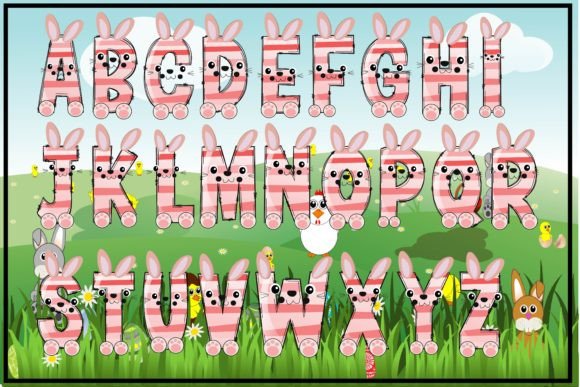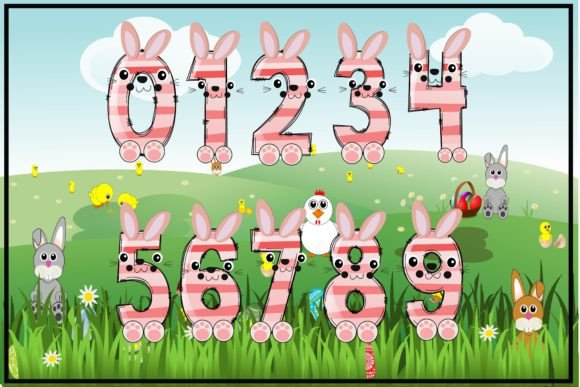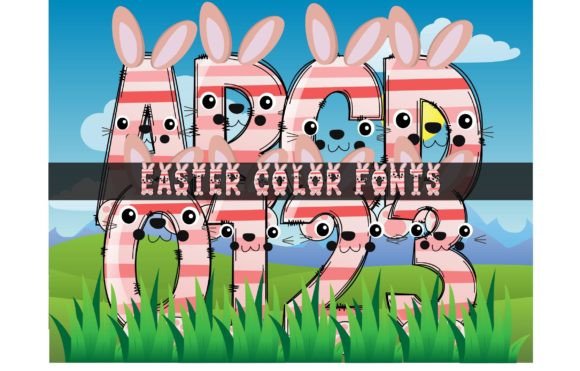
Easter Font: Add a Burst of Energy to Your Designs with Vibrant Hues
Are you looking for a way to add a fun and playful touch to your designs? Look no further than the Easter font! This vibrant and unique font is perfect for headlines, logos, and social media graphics, and is sure to make your designs stand out. In this article, we’ll explore the benefits of using the Easter font, and how it can enhance your designs with its bold and bright colors.
What is Easter Font?
Easter font is a type of color font that is specifically designed to add a burst of energy to your designs. With its vibrant hues and playful style, this font is perfect for designers and crafters who want to create fun and eye-catching designs. Whether you’re working on a project for Easter, spring, or just want to add a pop of color to your designs, the Easter font is a great choice.
Benefits of Using Easter Font
There are many benefits to using the Easter font in your designs. Here are just a few:
• Adds a fun and playful touch: The Easter font is perfect for designers who want to add a lighthearted and playful touch to their designs. Its bright colors and unique style make it a great choice for projects that require a bit of whimsy.
• Perfect for headlines and logos: The Easter font is ideal for headlines and logos, as it stands out and grabs attention. Its bold and bright colors make it easy to read, even at small sizes.
• Great for social media graphics: The Easter font is also perfect for social media graphics, as it is designed to stand out on a variety of backgrounds. Its vibrant colors and playful style make it a great choice for creating engaging and shareable graphics.
How to Use Easter Font in Your Designs
Using the Easter font in your designs is easy! Here are a few tips to get you started:
• Choose from a range of bright colors: The Easter font comes in a range of bright and bold colors, so you can choose the perfect shade for your design. From pastel pink to bright blue, there’s a color to suit every project.
• Use it for headlines and logos: The Easter font is perfect for headlines and logos, as it stands out and grabs attention. Try using it as a title font, or as a way to add a pop of color to your logo.
• Experiment with different colors and combinations: Don’t be afraid to experiment with different colors and combinations when using the Easter font. Try pairing it with other fonts, or using it on different backgrounds to create a unique look.
Here are a few tips for designers and crafters who want to get the most out of the Easter font:
• Use it to add a pop of color: The Easter font is perfect for adding a pop of color to your designs. Try using it as an accent font, or as a way to add a bit of whimsy to your project.
• Pair it with other fonts: The Easter font pairs well with a variety of other fonts, so don’t be afraid to experiment with different combinations. Try pairing it with a bold sans-serif font, or a elegant script font.
• Use it for seasonal projects: The Easter font is perfect for seasonal projects, such as Easter or spring-themed designs. Try using it to create fun and eye-catching graphics, or as a way to add a bit of whimsy to your project.
In conclusion, the Easter font is a fun and playful way to add a burst of energy to your designs. With its vibrant hues and unique style, it’s perfect for designers and crafters who want to create eye-catching and engaging graphics. Whether you’re working on a project for Easter, spring, or just want to add a pop of color to your designs, the Easter font is a great choice. So why not give it a try, and see how it can enhance your designs!